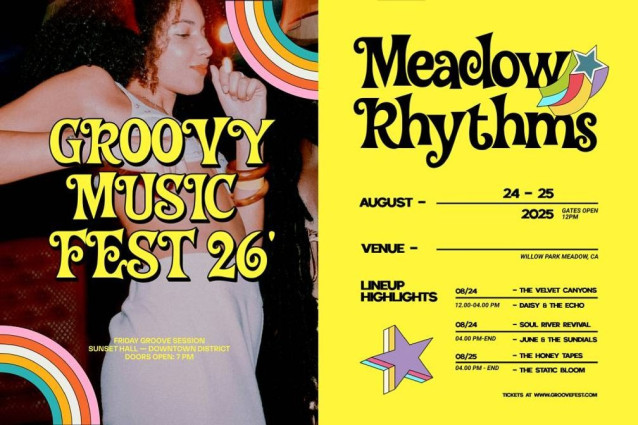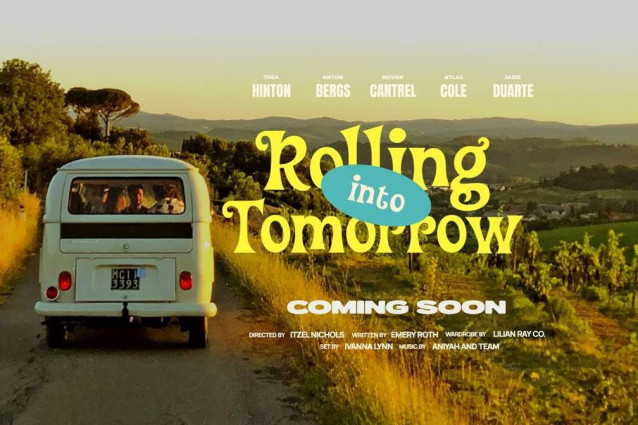
Remalos Font
Remalos Font is an expressive and unique display typeface crafted for bold visual impact. With its flowing curves, dramatic swashes, and warm gradient tones, Remalos brings energy and emotion to music branding, festival identities, and film titles. Designed to stand out on posters, covers, and screens, it blends a retro spirit with a modern edge—perfect for projects that demand personality, creativity, and strong visual storytelling.